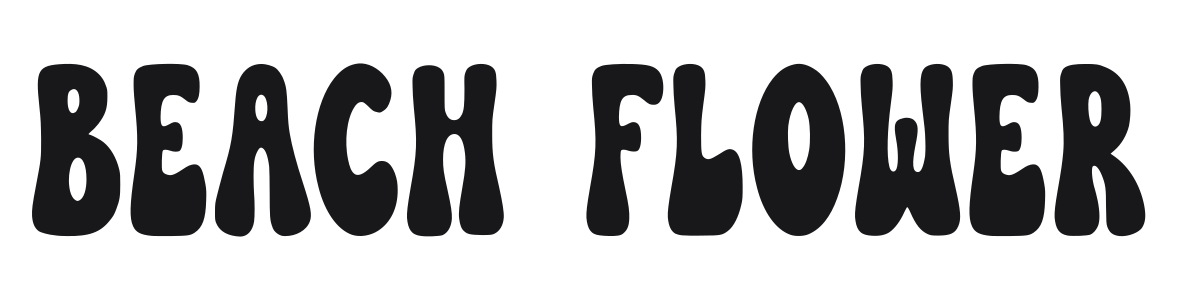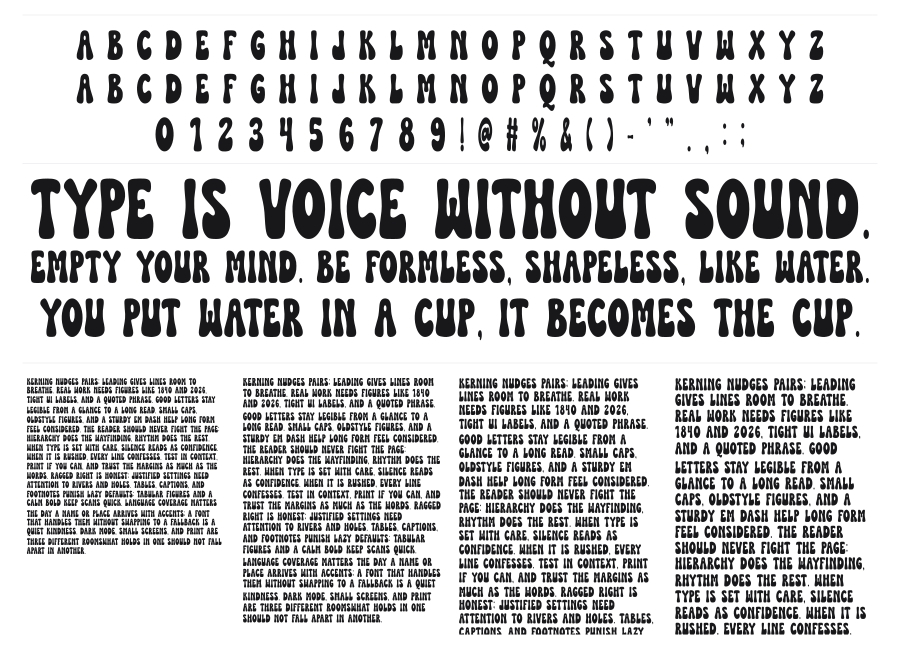
Beach Flower
Beach Flower is a bold, groovy display font dripping with 1960s and 70s psychedelic energy. Each character is thick and rounded with a soft, inflated quality, as if the letters were drawn in one fluid, bouncy motion. Great for posters, packaging, and anything that needs a retro, carefree attitude.